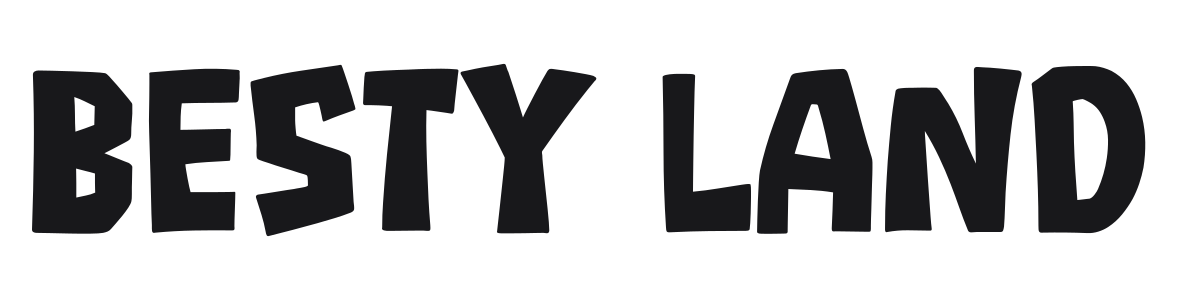
Besty Land
Besty Land is a heavy, hand-crafted display sans with chunky, irregular characters that feel like they were drawn with a thick marker. Each letter sits slightly off-kilter from the next, giving the whole typeface a loose, cartoon energy that works well for kids' content, packaging, and anything that needs to feel approachable and fun. The bold weight commands attention without taking itself too seriously.